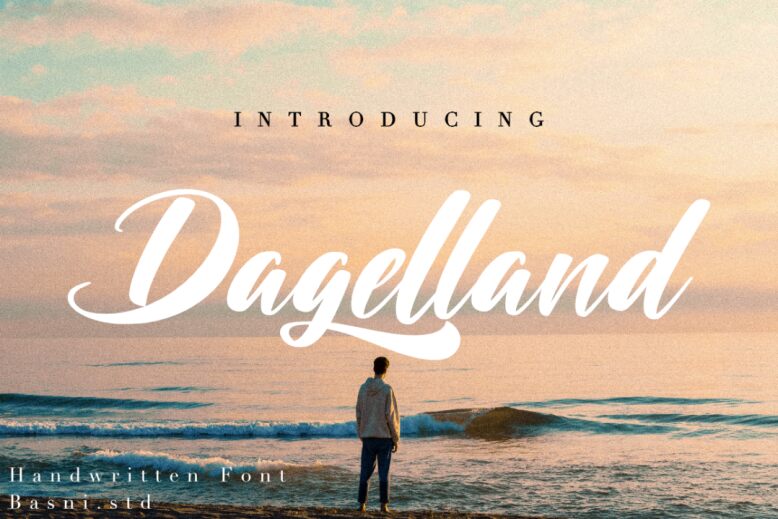
Dagelland
Dagelland, a stunning brush font created by Basni.std, is meticulously crafted to add an artistic touch to your projects. With its semi-bold weight and intricate details, it is ideal for a variety of creative endeavors.
This versatile typeface is perfect for branding, giving your logo a unique and handcrafted look. It also shines when used in website designs, adding character and charm to your online presence. Whether you're designing invitations or creating editorial layouts, Dagelland's alluring brush style will bring an elegant flair to your work.